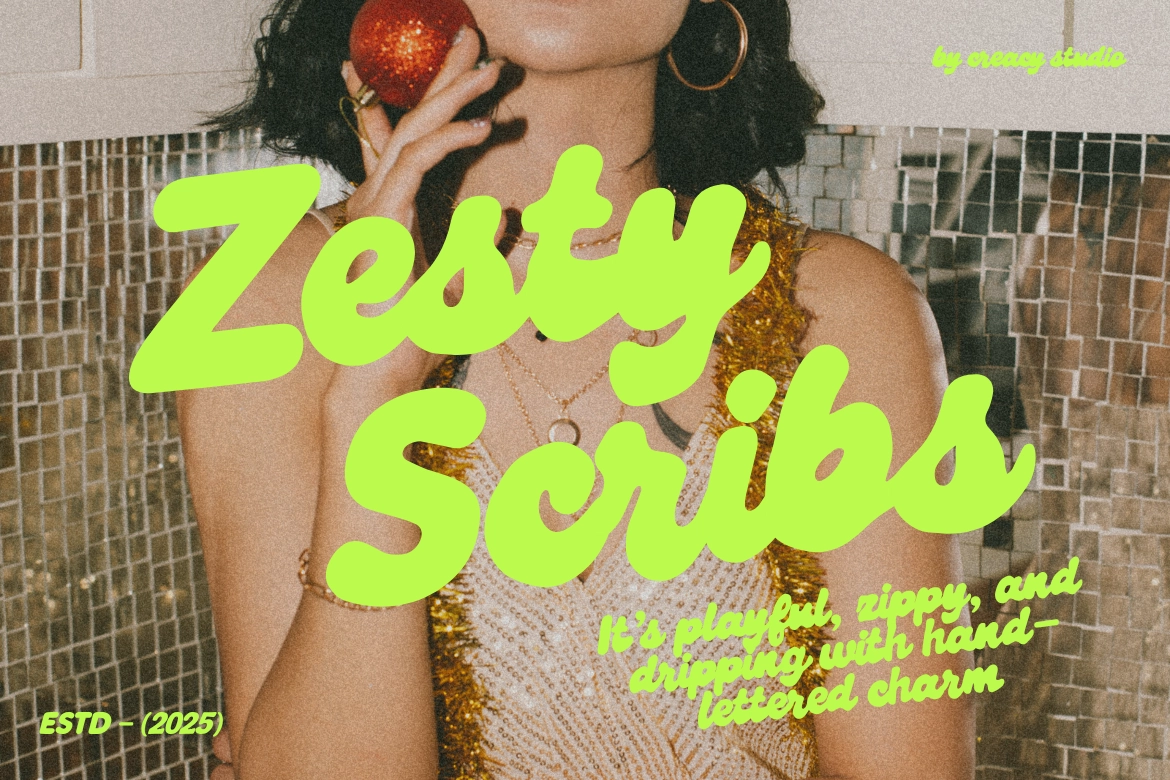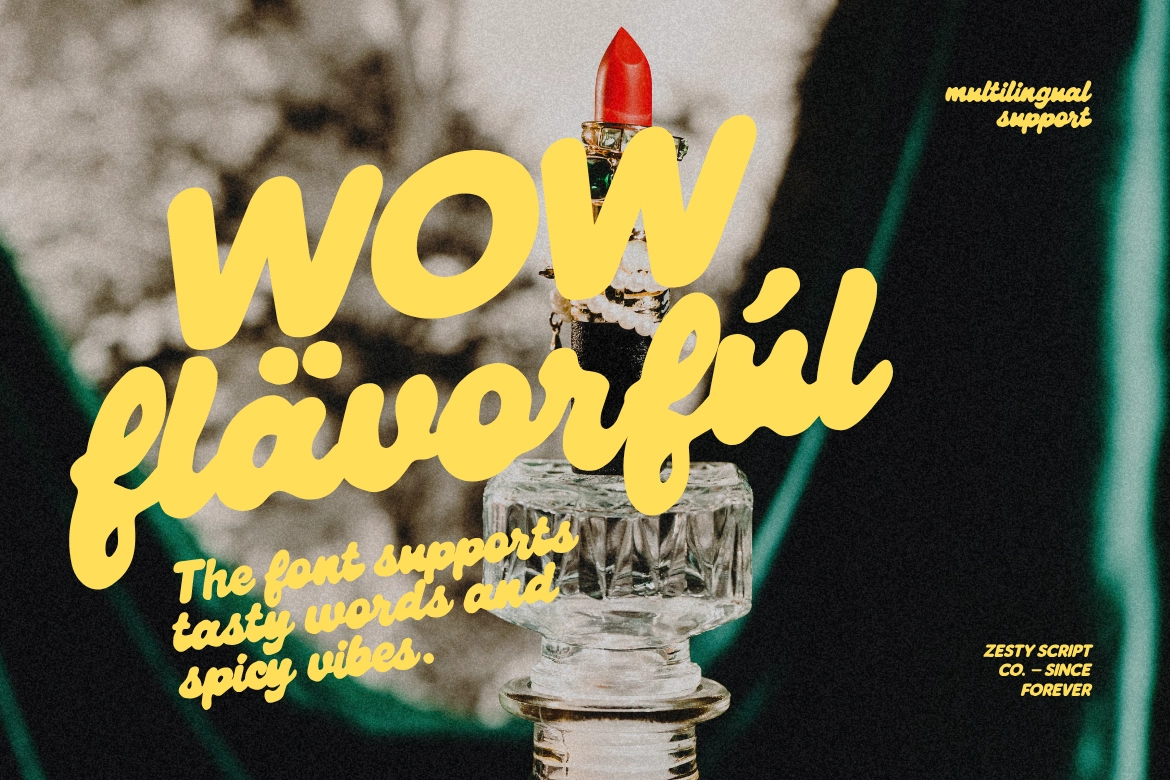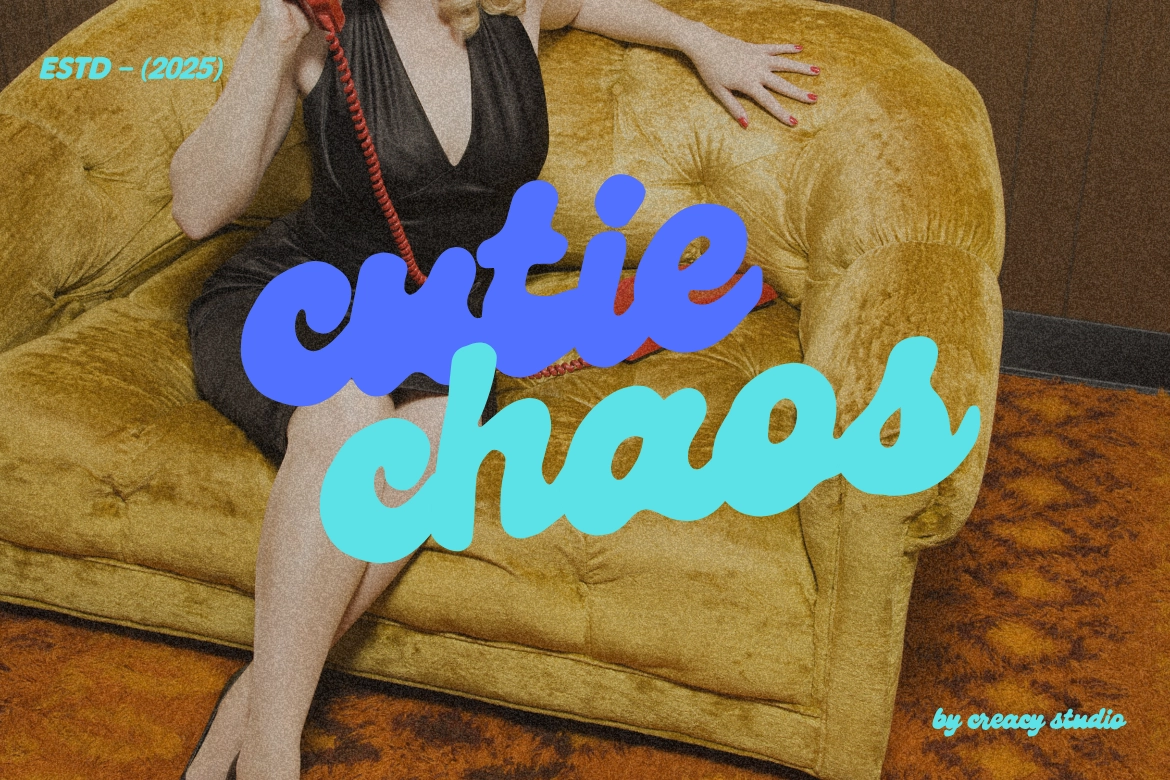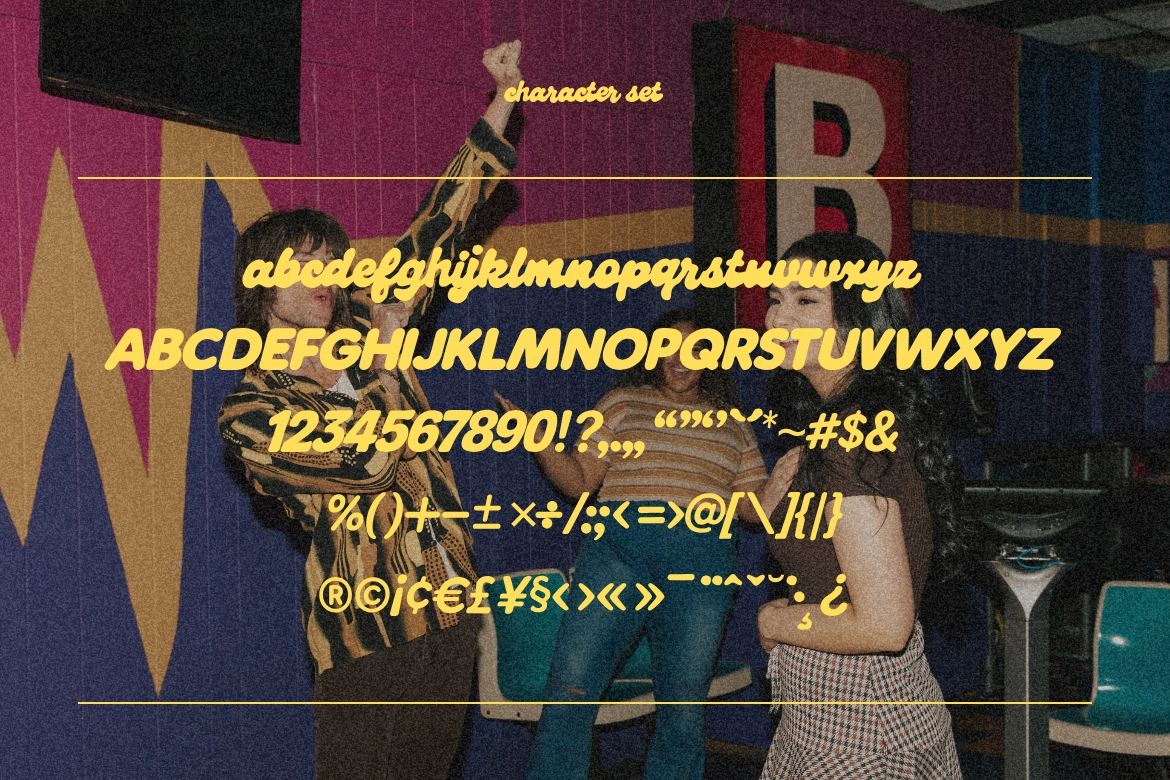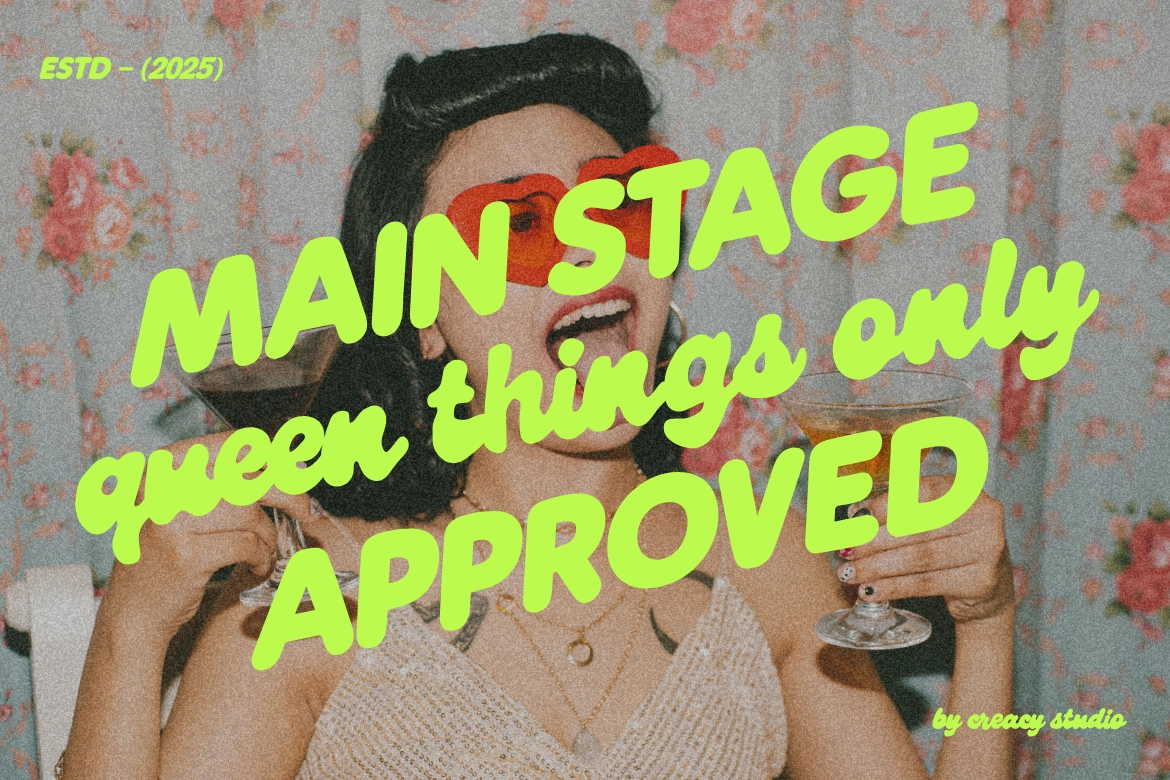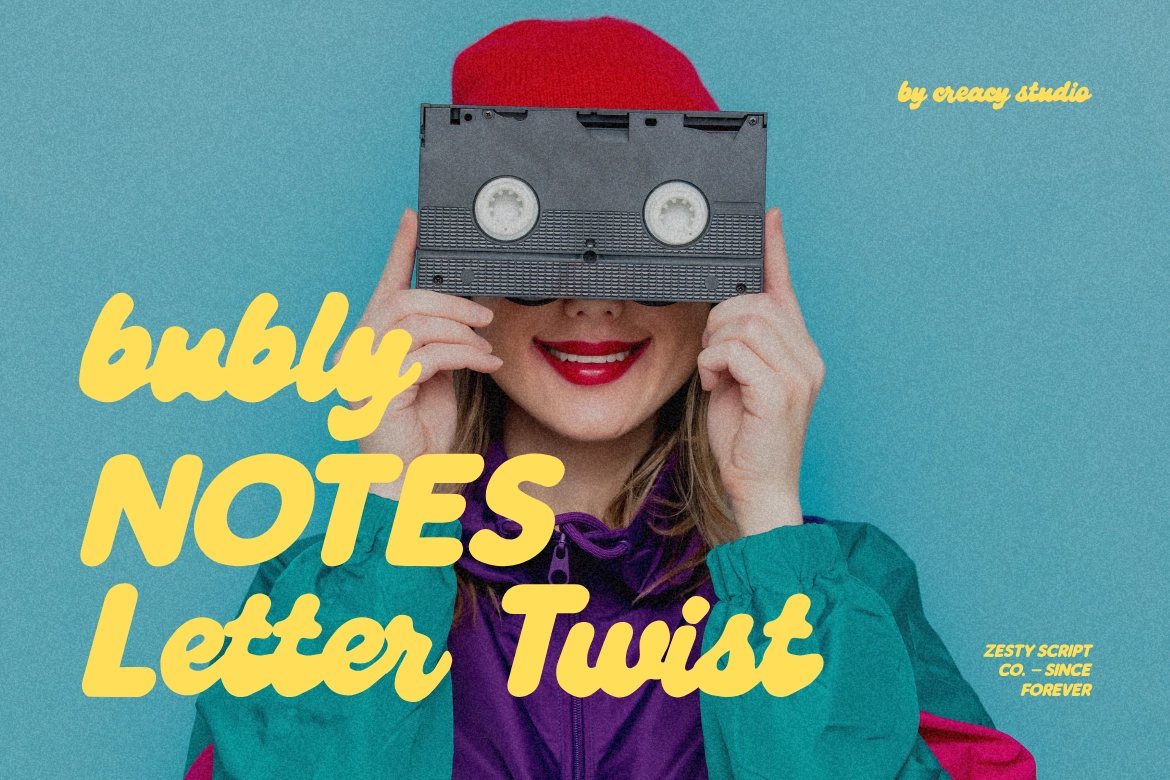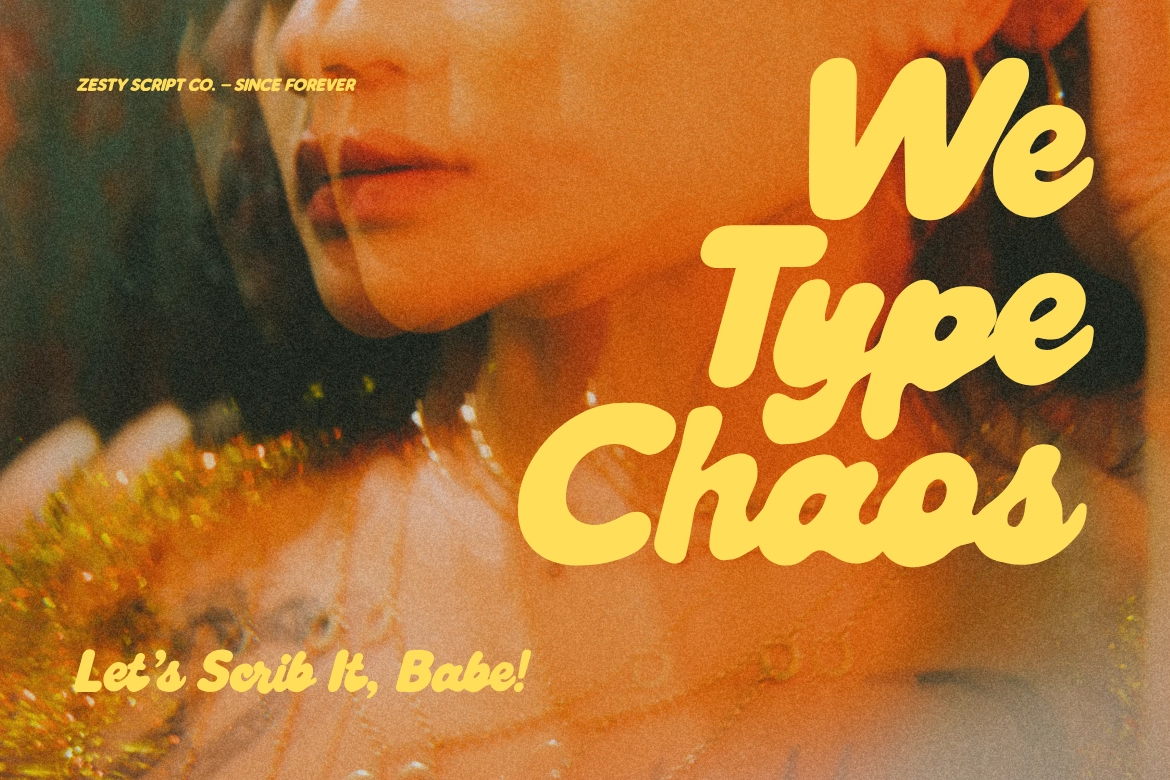
Zesty Scribs – A Playful Script Font
Add a spark of fun and personality to your designs with Zesty Scribs, a playful handwritten script font full of energy and charm!
Every stroke feels spontaneous — as if written with a joyful brush on a lazy afternoon. Zesty Scribs captures the carefree spirit of doodles, making it perfect for cheerful branding, social media posts, packaging, or creative projects that need a fresh, handmade touch.
Its smooth flow, rounded edges, and casual rhythm make it feel friendly and approachable — ideal for brands that love to stay bright, quirky, and full of zest.
Perfect For
• Playful branding & packaging
• Greeting cards & stationery
• Children’s books & quotes
• Social media & lifestyle designs
• Creative lettering projects